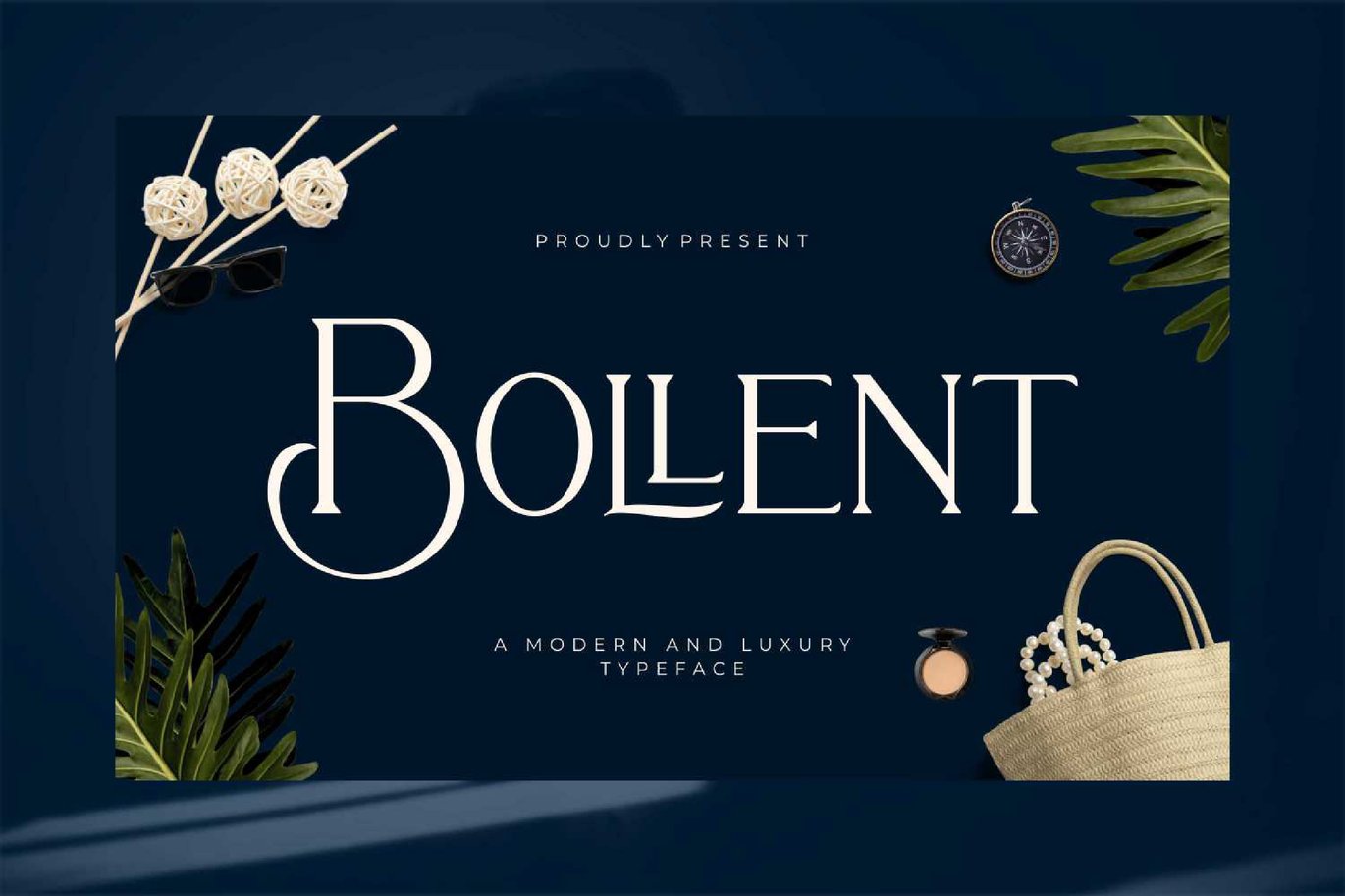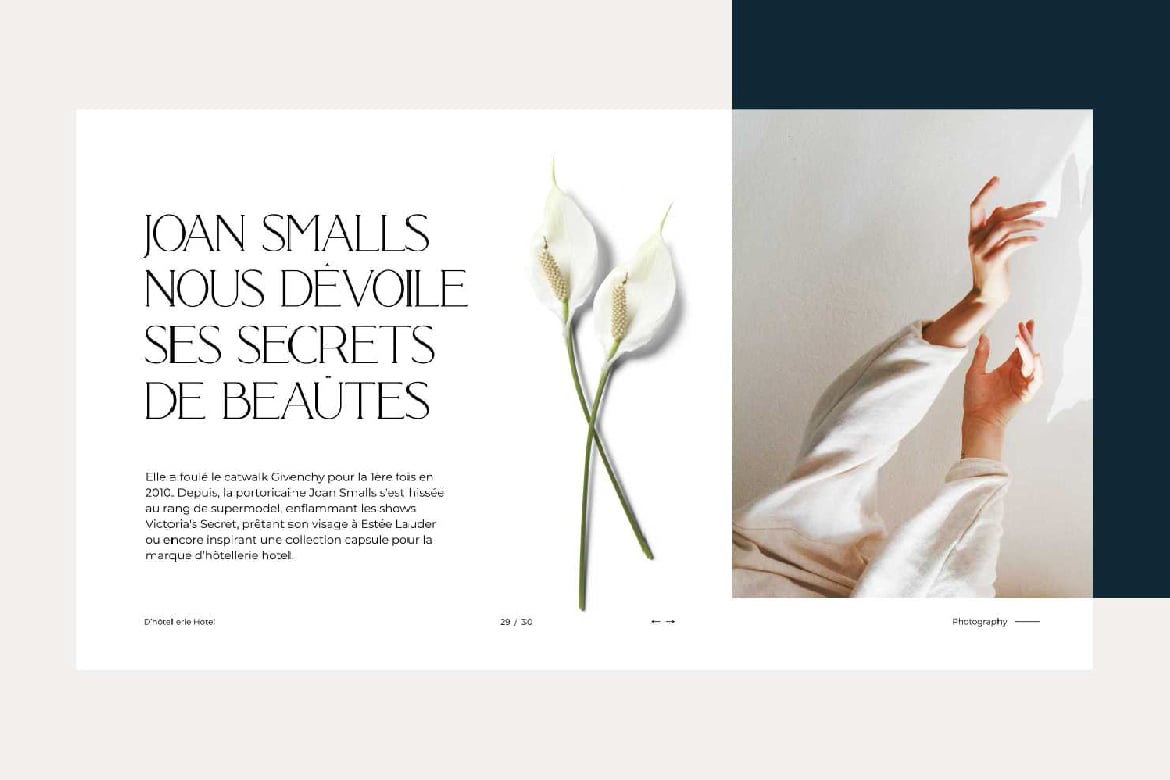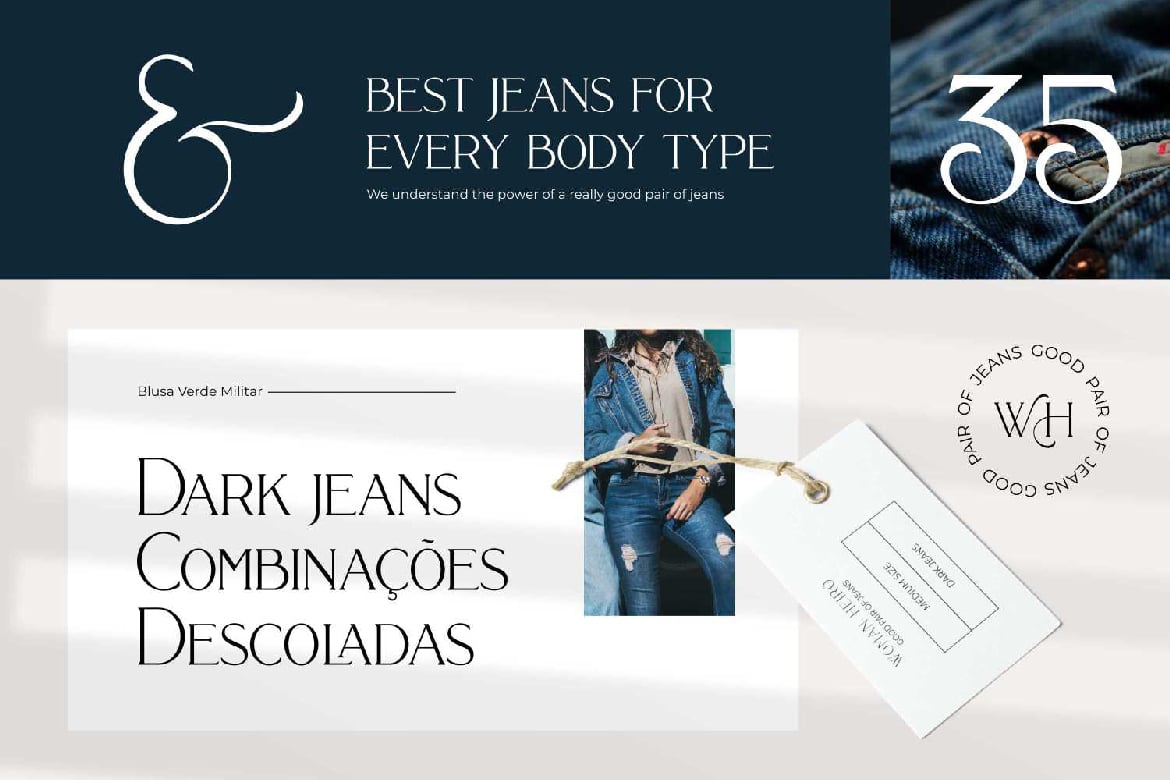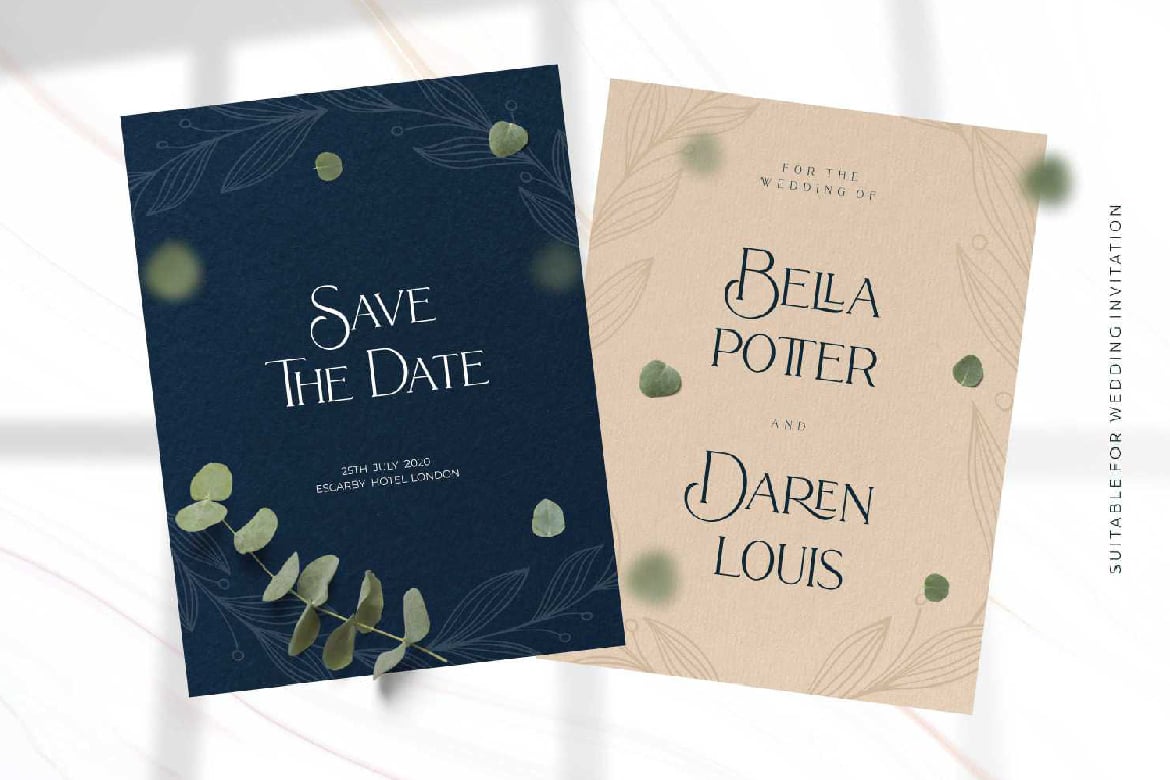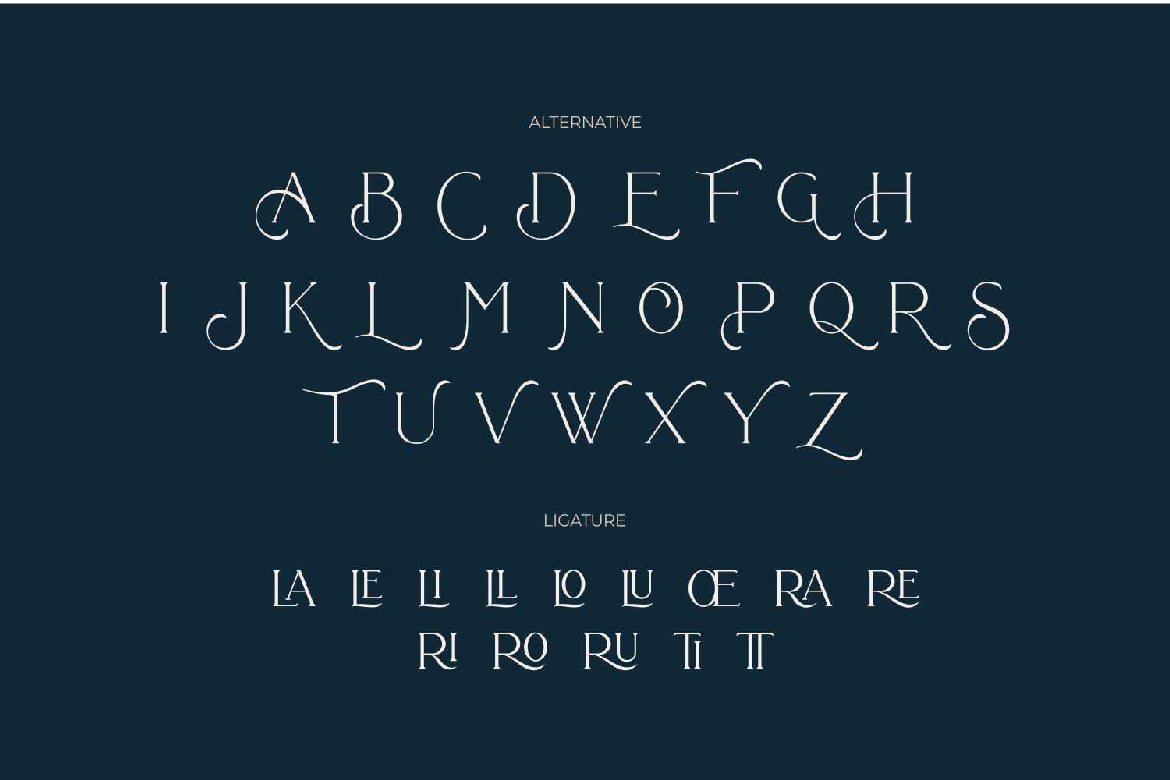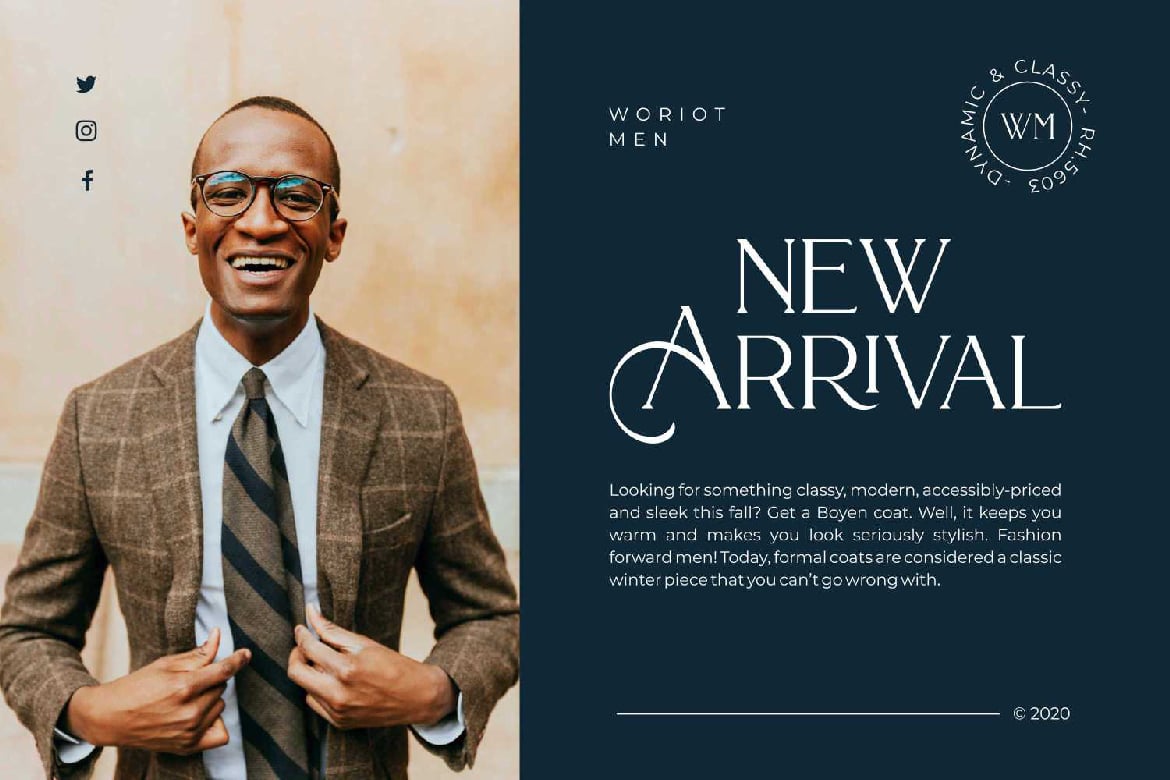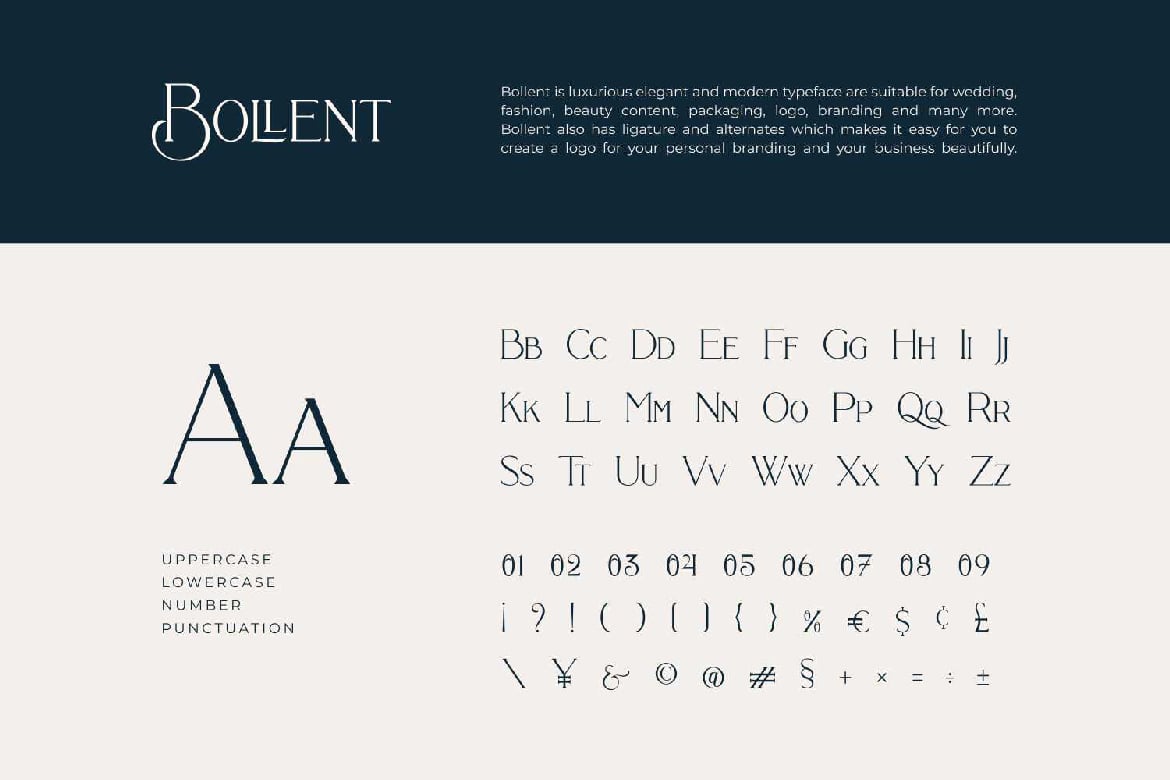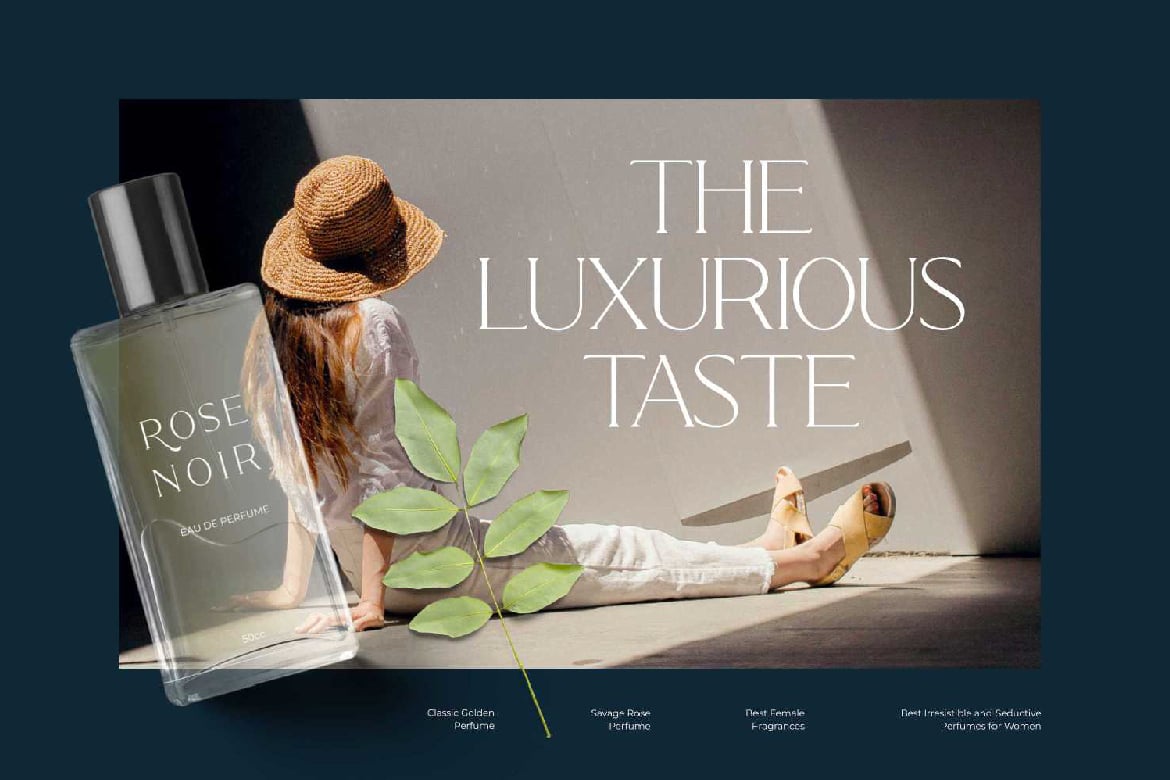
Modern Font – Bollent
Bollent is a luxurious, elegant, and modern typeface which is suitable for wedding, fashion, beauty, packaging, logo, branding content and much more. Bollent also includes ligatures and alternates which makes it easy for you to create a logo for your personal branding and your business beautifully.